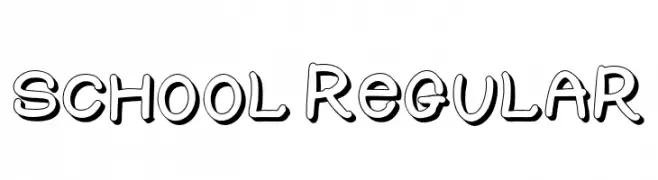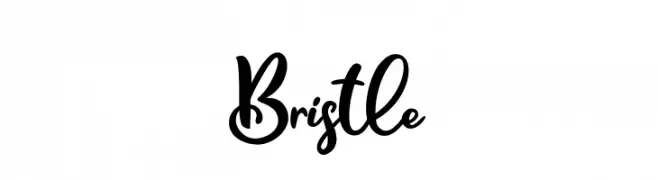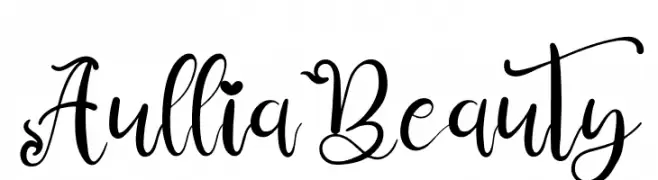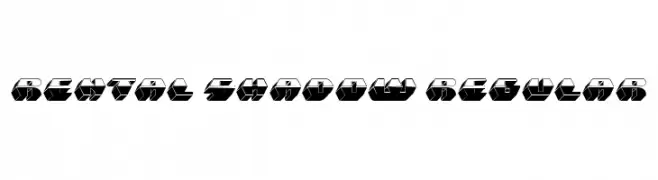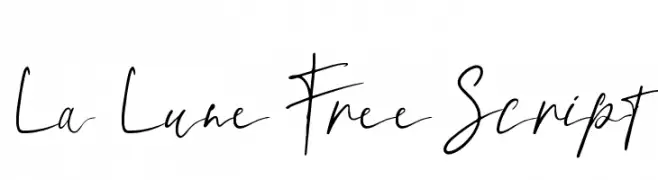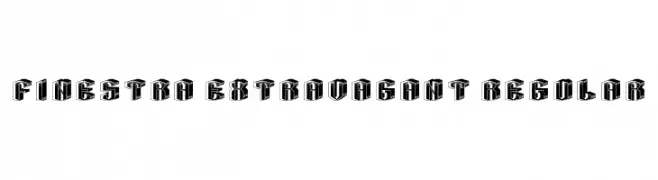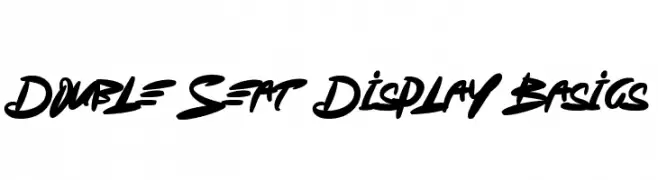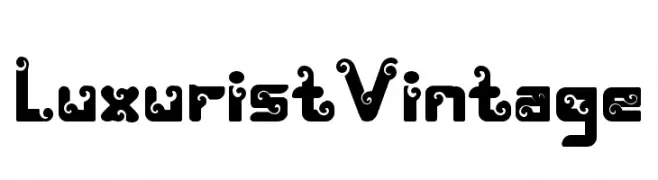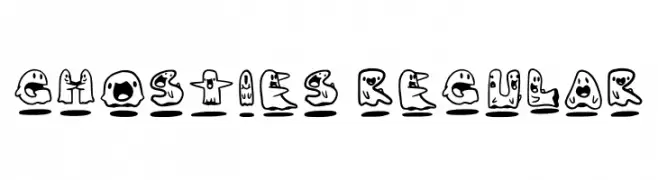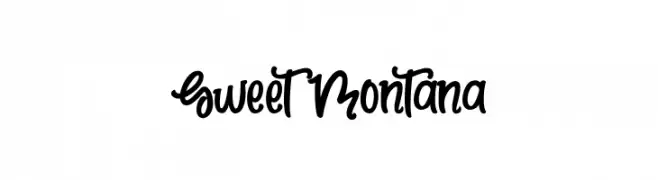
A playful, hand-drawn font with a 3D shadow effect, ideal for fun and engaging designs.
A bold, playful script font with interconnected letters and smooth curves.
An elegant script font with intricate swashes and a handwritten feel.
A bold, 3D shadowed font with a geometric, modern style.
An elegant, flowing script font with smooth, cursive strokes.
A bold, 3D expanded font with a futuristic and dynamic style.
An elegant script font with intricate swirls and decorative flourishes.
A modern, handwritten script font with fluid, connected letters.
A playful, bold font with a whimsical, hand-drawn style.
A bold, 3D geometric font with Art Deco influences and intricate detailing.
A bold, energetic script font with a dynamic, handwritten style.
A bold, ornate font with intricate swirls and a vintage feel.
A bold, edgy font with a hand-drawn, jagged style.
A playful, ghost-themed font with a hand-drawn, cartoonish style.
A playful, bold, and rounded handwritten font with a lively and informal style.
A bold, decorative font with modern and traditional influences.
A playful, hand-drawn script font with bold, rounded characters and whimsical flourishes.
A circuit board-inspired font with a futuristic, technical design.
A bold, slanted font with a dynamic and energetic style.
A playful, decorative script font with a rough, handcrafted texture.
A bold, dripping decorative font with a horror or slime effect.
A bold, 3D italic font with a dynamic and futuristic style.
Standardized warning sign pictograms with bold, simplified icons.
Bold, cartoonish display font with a spooky, dripping effect.
A fluid and elegant script font with dynamic, cursive letterforms.
A dynamic, expressive handwritten font with fluid strokes and natural flow.
An elegant and flowing script font with graceful, cursive letterforms.
A lively and expressive handwritten font with fluid strokes.
A playful, hand-drawn outline font with a whimsical and dynamic style.
A sleek, modern italic font with clean lines and balanced proportions.
A bold, decorative font with playful skull and star embellishments.
A dynamic, handwritten-style font with bold, expressive characters.
A bold, hand-painted style font with textured, dynamic strokes.